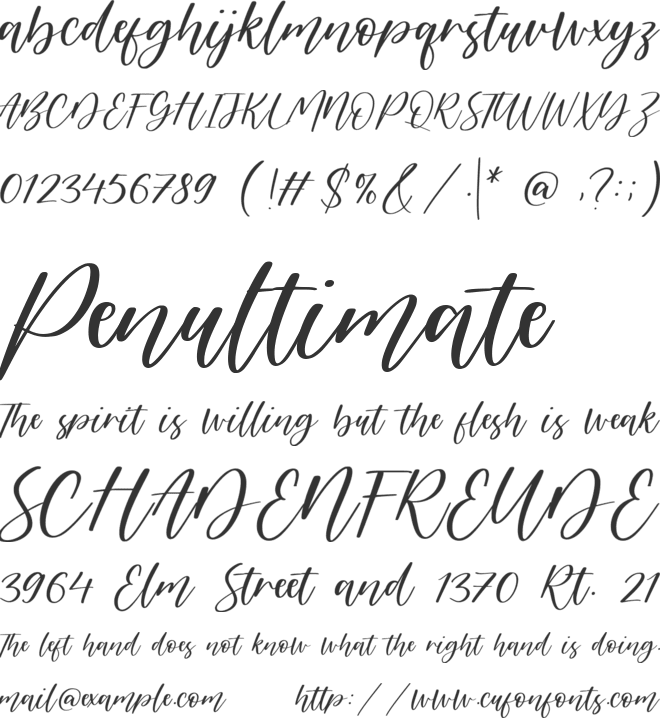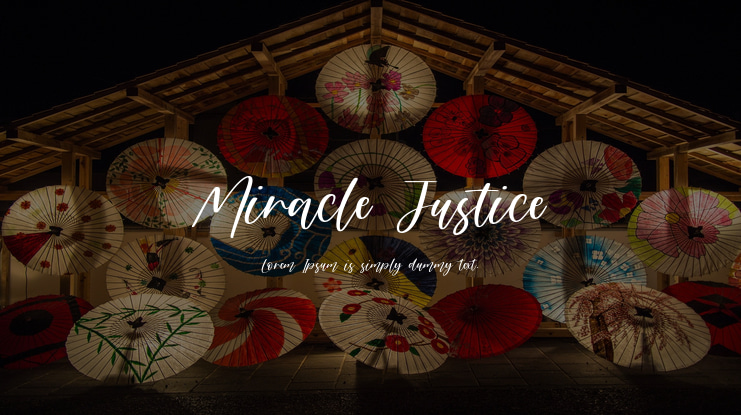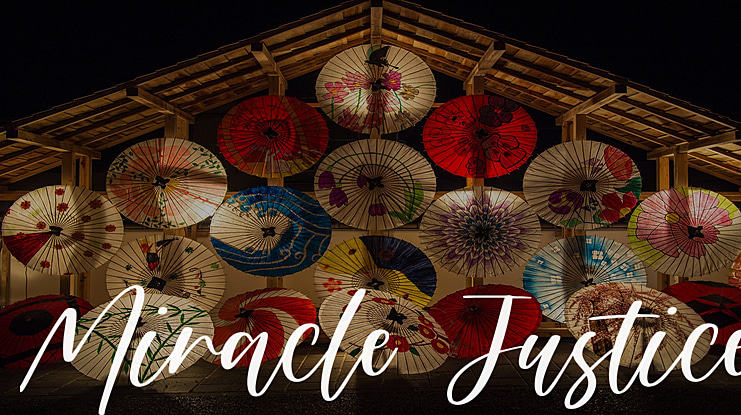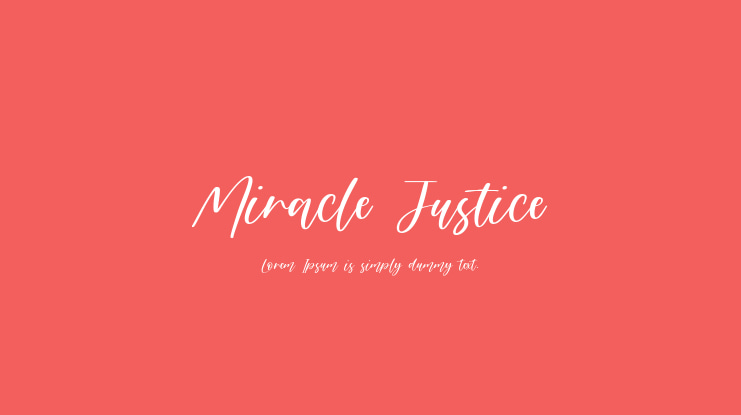
Miracle Justice Font
Introducing by Letterative Studio : Miracle Justice Font
Miracle Justice is a Modern Casual Handwritten Script Font
Miracle Justice is perfect for product packaging, branding project, megazine, social media, wedding, or just used to express words above the background.
Miracle Justice also multilingual support